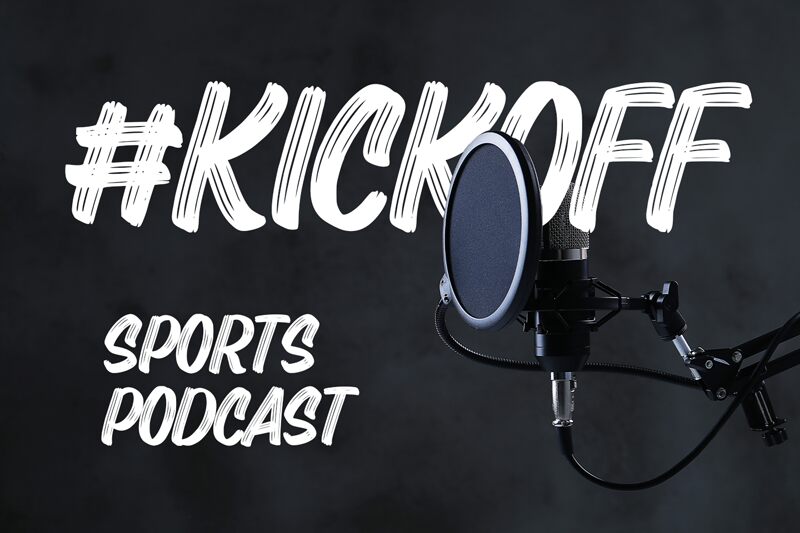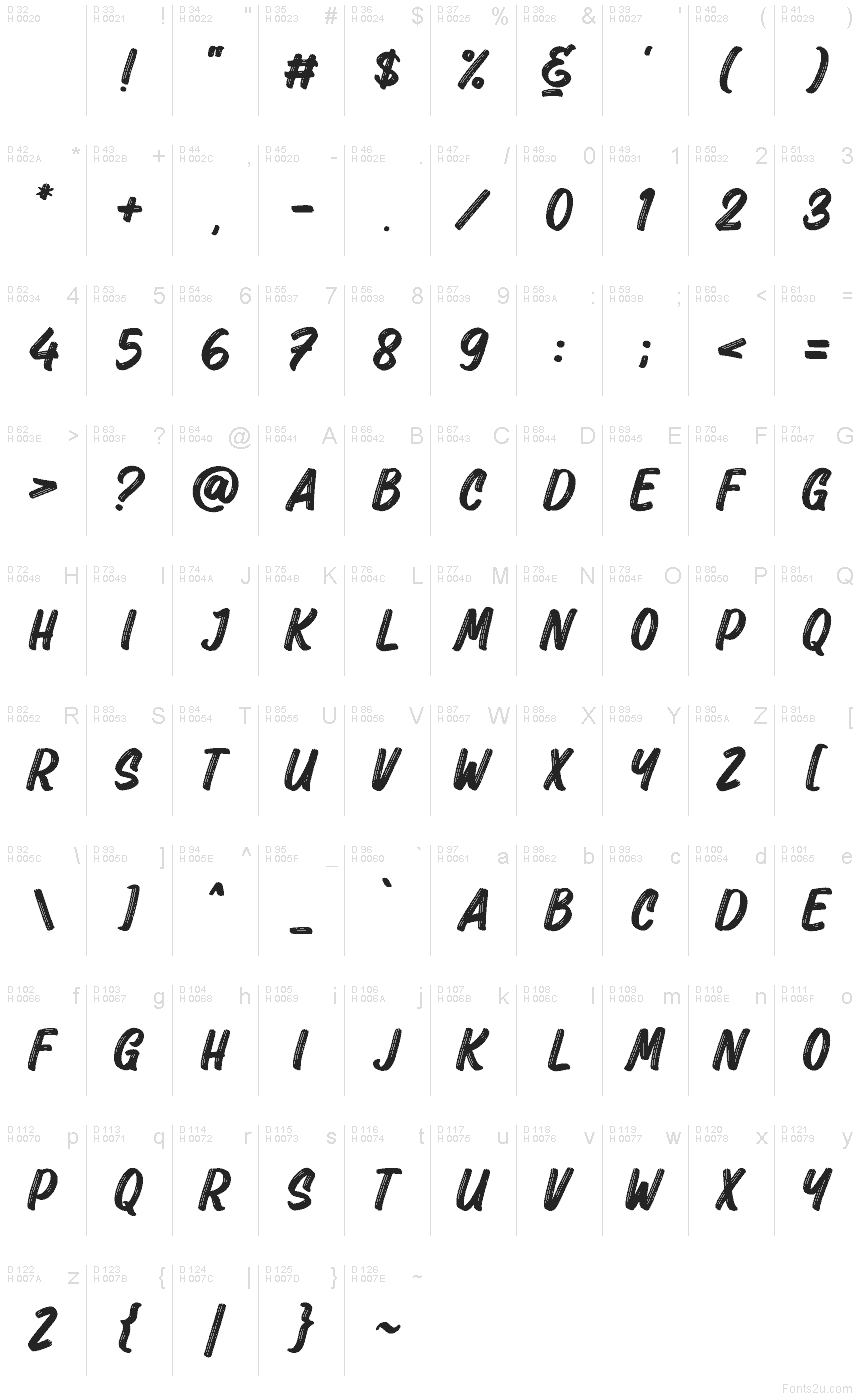
The Hashtag
The Hashtag font by Abo Daniel Studio is a free brush typeface. Its strokes look like quick, repeated passes of a dry marker—gritty, streaked, and slightly slanted—so every word feels in motion. The letters pack a punch without losing legibility, with lively texture that reads as hand-made energy rather than mess.
Using The Hashtag, headlines jump off the page for streetwear logos, event flyers, YouTube thumbnails, social media promos, food-truck branding, and bold poster work. This free font shines when set big with a little extra tracking to let the streaks breathe. Pair it with a clean grotesque sans for body copy to keep the message crisp and the attitude loud.